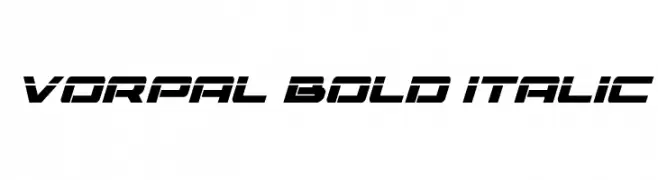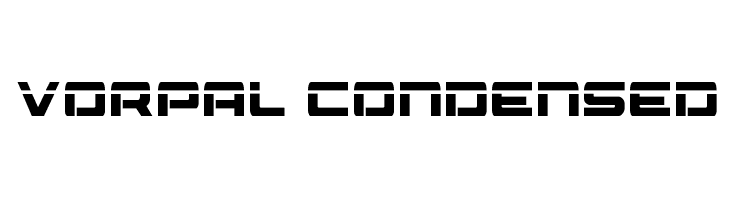
A bold, futuristic font with geometric and angular shapes.
A bold, italicized font with a futuristic and dynamic style.
A bold, futuristic, and condensed font with geometric and angular characters.
A futuristic, condensed italic font with bold, geometric shapes.
A futuristic, geometric font with bold, angular characters and an expanded width.
A futuristic, italicized font with angular lines and expanded width for a bold, modern look.
A bold, futuristic italic font with sharp, angular lines and a dynamic style.
A bold, futuristic font with geometric angles and a dynamic slant.
A futuristic, geometric outline font with an italic slant and sharp angles.
A futuristic, geometric outline font with a modern, digital aesthetic.